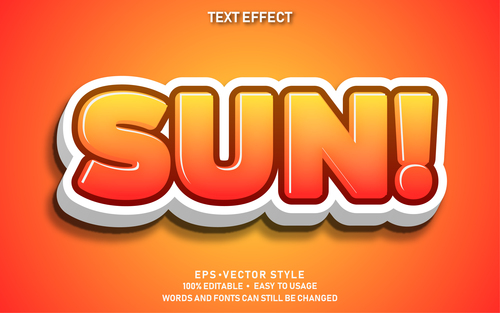
Review Of Sun Fonts Ideas
Sun is a headline and text face in two widths, designed for impact and clarity. Web sun by lucasfonts individual styles from $49.00 complete family of 28 fonts: Sun font previous article pianeti.
Web 6 Fonts A Day Without Sun Text Regular Activate Font The Quick Brown Fox Jumps Over The Lazy Dog A Day Without Sun Text Italic Regular Activate Font The Quick Brown Fox Jumps.